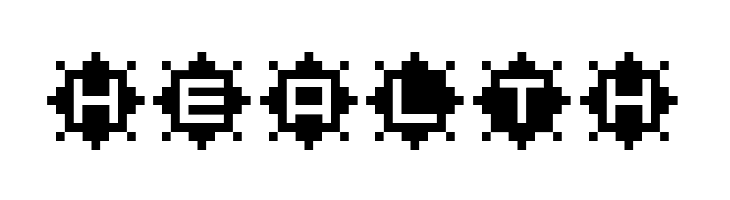
A pixelated, decorative font with characters enclosed in a gear-like border, evoking a retro digital feel.
A bold, pixelated font with a retro digital style.
A bold, pixelated font with a geometric, retro digital style.
A pixelated, retro-style font with a geometric and digital appearance.
A bold, geometric font with a modern, pixelated style.
A bold, pixelated font with a retro, digital aesthetic.